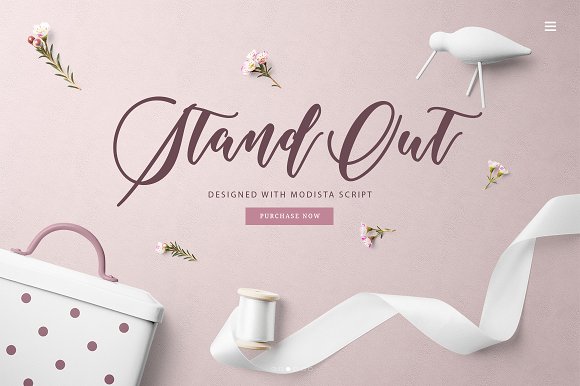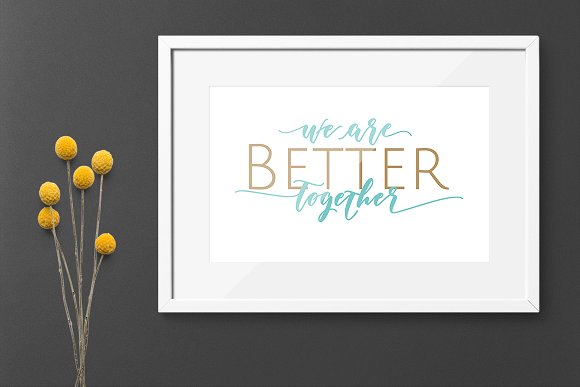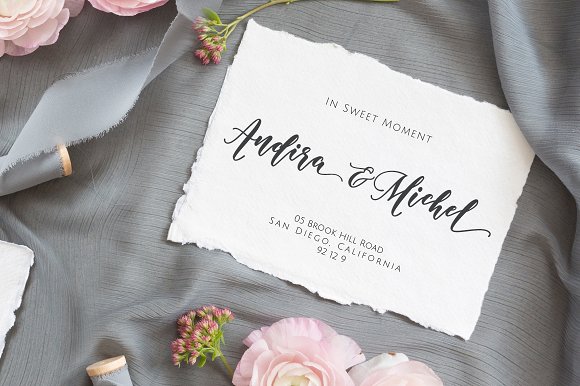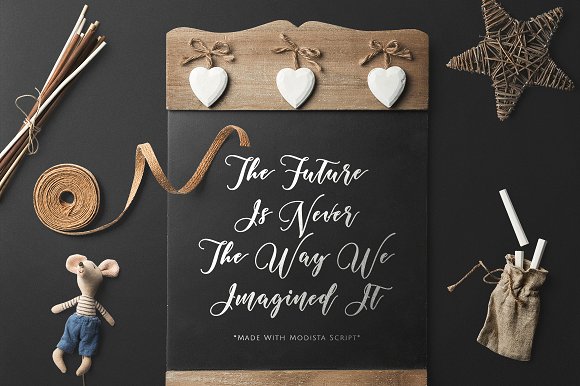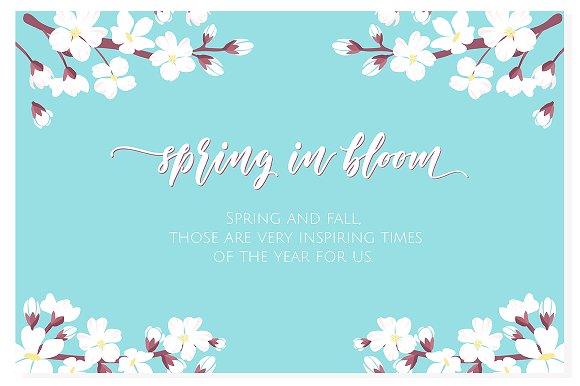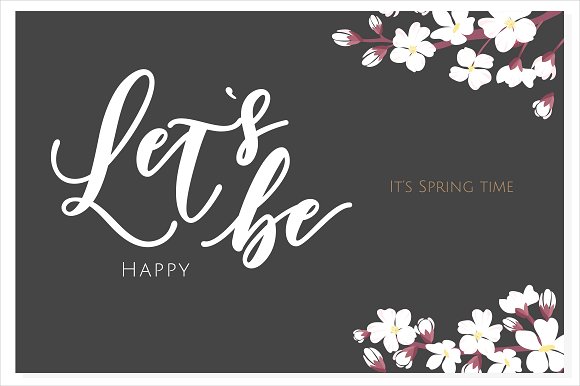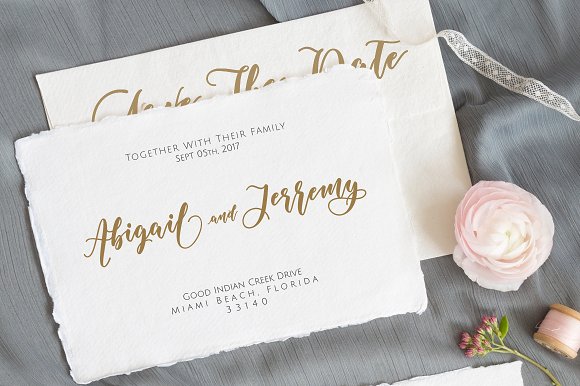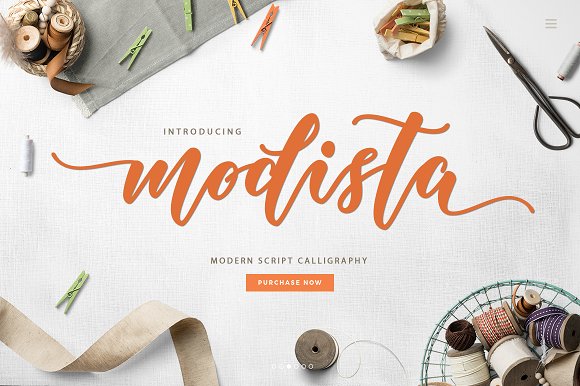
Modista Script Font
A script font with a smooth calligraphy style. Comes with 677 glyphs. Modista is perfect for branding projects, homeware designs, product packaging, use in name card, invitation cards, etc. Simply as a stylish text overlay to any background image or anything requiring a sprinkle of elegance.